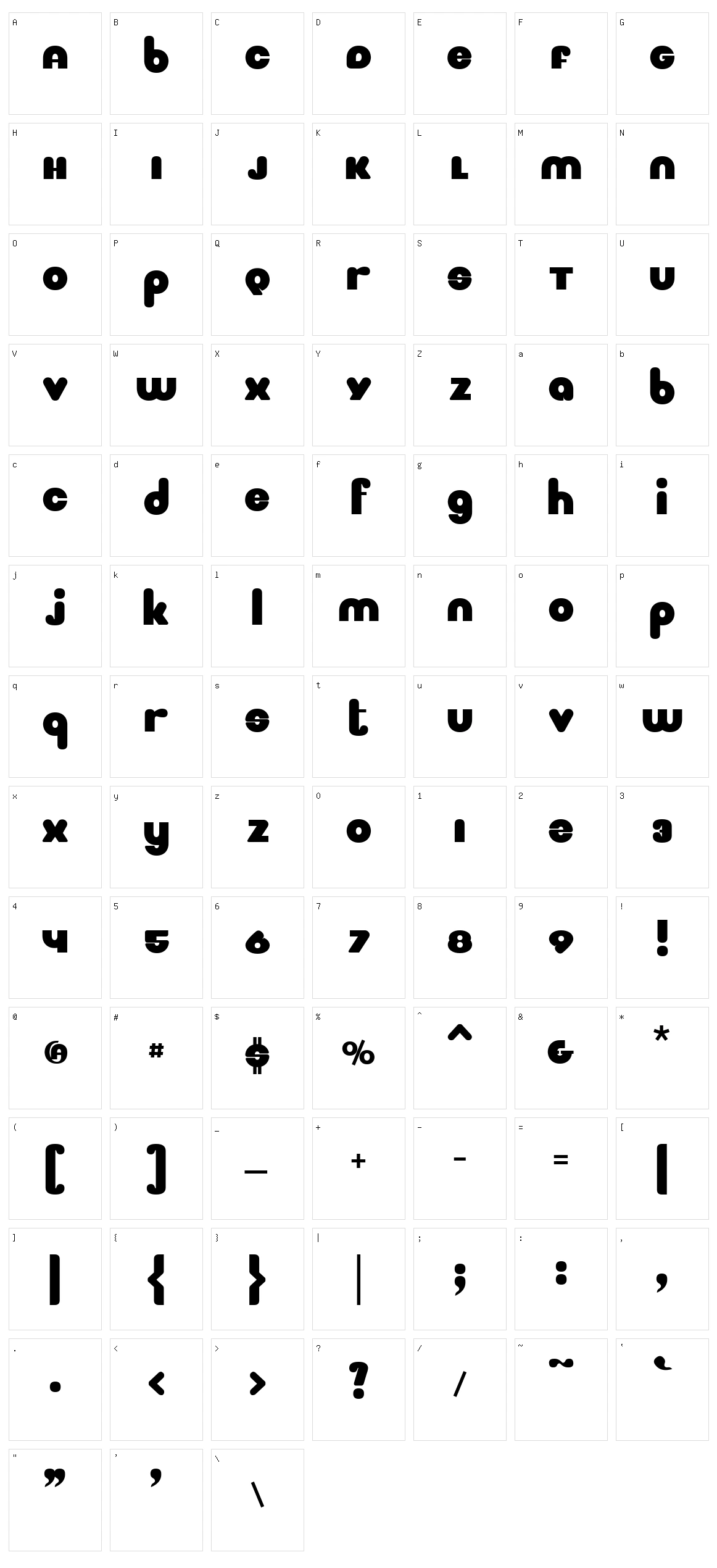
The free font Mignone is carefully designed by Bambootypes, showcasing a thoughtful balance of creativity and usability and falls under the Groovy font style. When you download the ZIP file, it contains only 93.82 KB of font files, making it lightweight and quick to download. Please review the license details below to understand permitted usage and distribution rights. If license information is not available, we recommend using this font for personal projects only or contacting the author directly for commercial usage permissions.
NB: The design of this font has been inspired by the Nickelodeon logo.